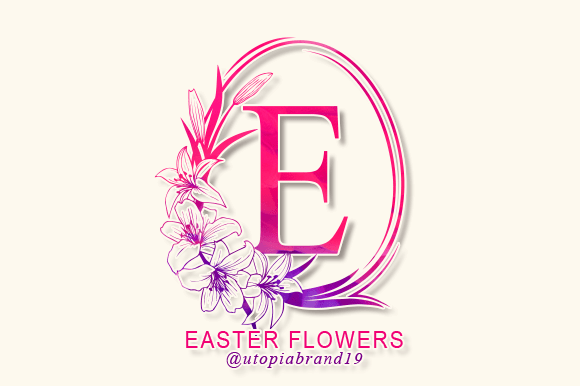
Easter Flowers Monogram Font: Elevate Your Designs with Elegance
The Easter Flowers Monogram Font is a beautiful and elegant decorative font that is perfect for adding a touch of sophistication to your designs. With its lovely ornaments and authentic feel, this font is sure to capture the hearts of designers and crafty enthusiasts alike. In this article, we’ll explore the features and benefits of the Easter Flowers Monogram Font, and show you how to use it to create stunning wedding invitations, stationary art, social media posts, and greeting cards.
What is Easter Flowers Monogram Font?
The Easter Flowers Monogram Font is a decorative font that features intricate and lovely ornaments, perfect for adding a touch of elegance to your designs. This font is designed to resemble traditional Easter flowers, with delicate petals and stems that evoke a sense of springtime and new beginnings.
With its authentic feel and beautiful design, the Easter Flowers Monogram Font is perfect for a variety of design projects, from wedding invitations and stationary art to social media posts and greeting cards.
Design Uses for Easter Flowers Monogram Font
The Easter Flowers Monogram Font is a versatile font that can be used for a variety of design projects. Here are some ideas to get you started:
- Wedding Invitations: Add a touch of elegance to your wedding invitations with the Easter Flowers Monogram Font. This font is perfect for creating beautiful and sophisticated wedding stationery.
- Stationary Art: Use the Easter Flowers Monogram Font to create beautiful stationary art, including notecards, journals, and planners.
- Social Media Posts: Add a touch of springtime to your social media posts with the Easter Flowers Monogram Font. This font is perfect for creating eye-catching graphics and posts.
- Greeting Cards: Use the Easter Flowers Monogram Font to create cute and personalized greeting cards for Easter, weddings, and other special occasions.
Benefits of Using Easter Flowers Monogram Font
The Easter Flowers Monogram Font offers a range of benefits for designers and crafty enthusiasts. Here are some of the advantages of using this font:
- Elegant Design: The Easter Flowers Monogram Font features a beautiful and elegant design that is perfect for adding a touch of sophistication to your designs.
- Authentic Feel: This font has an authentic feel that evokes a sense of springtime and new beginnings.
- Versatility: The Easter Flowers Monogram Font can be used for a variety of design projects, from wedding invitations and stationary art to social media posts and greeting cards.
Design Tips for Using Easter Flowers Monogram Font
Here are some design tips for using the Easter Flowers Monogram Font:
- Pair with Other Fonts: Pair the Easter Flowers Monogram Font with other fonts to create a unique and eye-catching design.
- Use in Combination with Images: Use the Easter Flowers Monogram Font in combination with images to create a beautiful and visually appealing design.
- Experiment with Colors: Experiment with different colors to find the perfect combination for your design.
- Keep it Simple: Keep your design simple and elegant to let the font shine.
Easter Flowers Monogram Font Details
Here are the details of the Easter Flowers Monogram Font:
- Font Type: Decorative Font
- Font Style: Elegant, Ornate
The Easter Flowers Monogram Font is a beautiful and elegant decorative font that is perfect for adding a touch of sophistication to your designs. With its lovely ornaments and authentic feel, this font is sure to capture the hearts of designers and crafty enthusiasts alike. Whether you’re creating wedding invitations, stationary art, social media posts, or greeting cards, the Easter Flowers Monogram Font is the perfect choice.